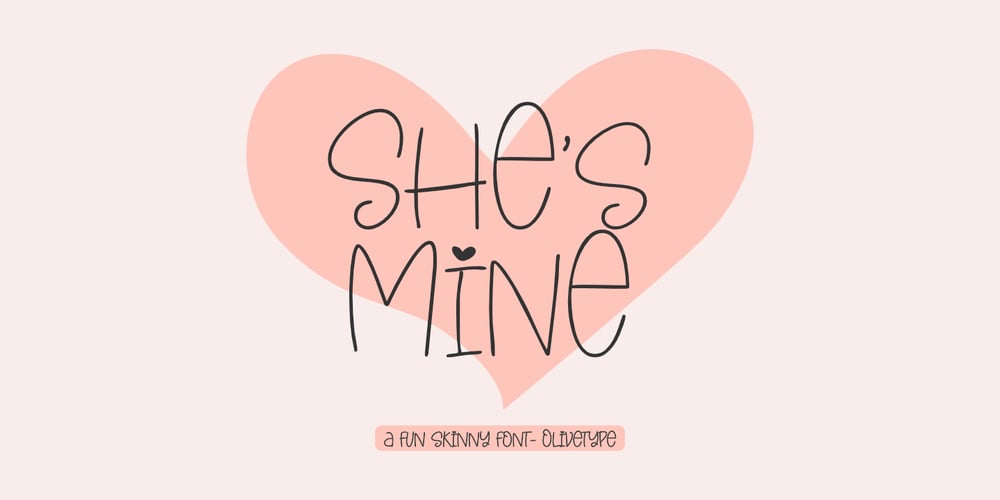
She is Mine Font Family was designed by Nurul Hidayani and published by Olivetype. She is Mine contains 1 styles and family package options. She’s Mine is a fun and girly handwritten font. Its skinny and smooth style makes this font incredibly versatile, fitting a wide variety of creative ideas such as: kids, school projects, crafting and DIY projects.So what’s included: She’s Mine (OTF) Basic Latin A-Z, a-z, numbers, symbols, and punctuations International Characters. Thank you